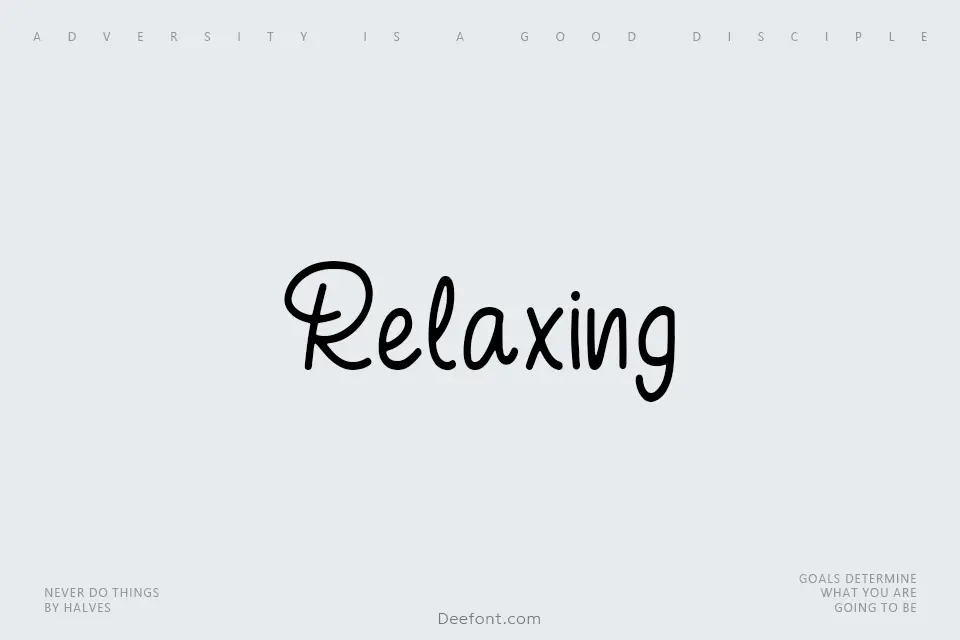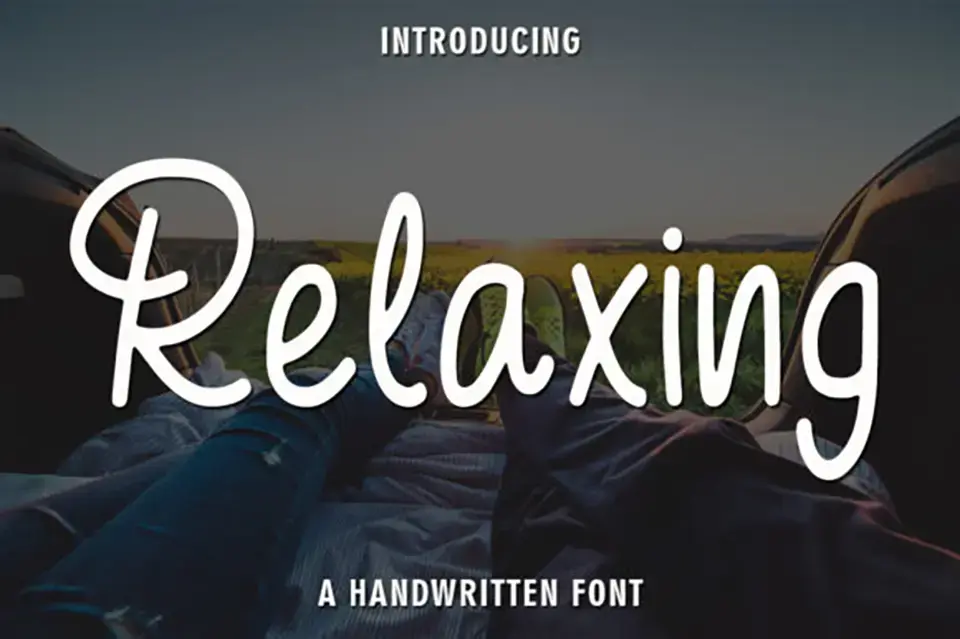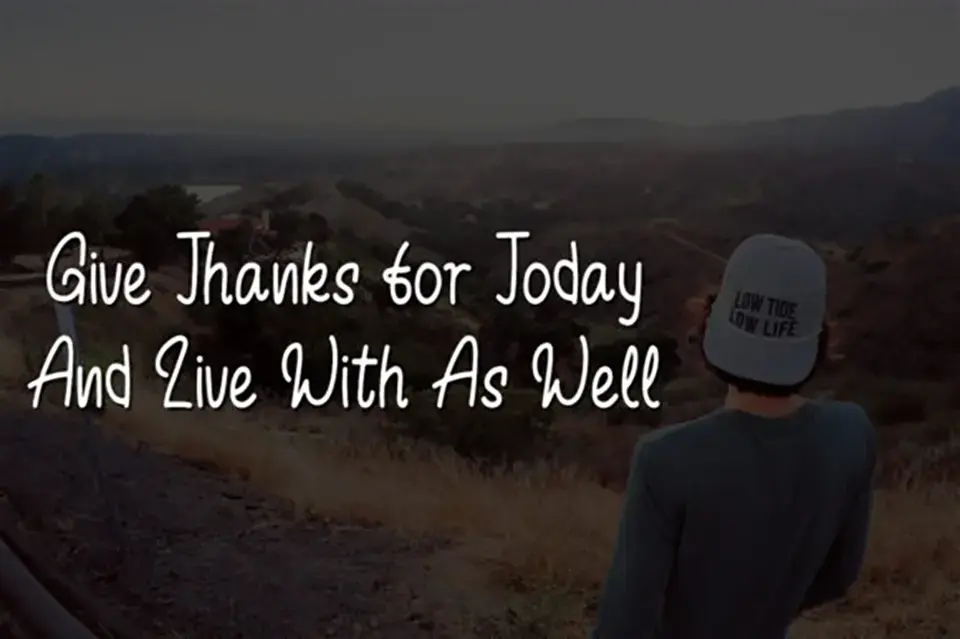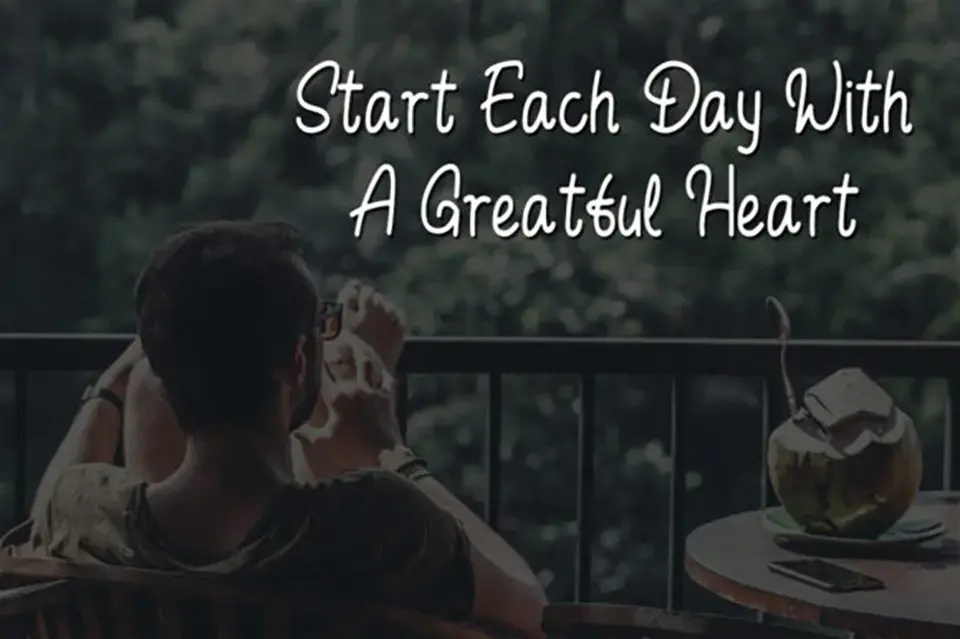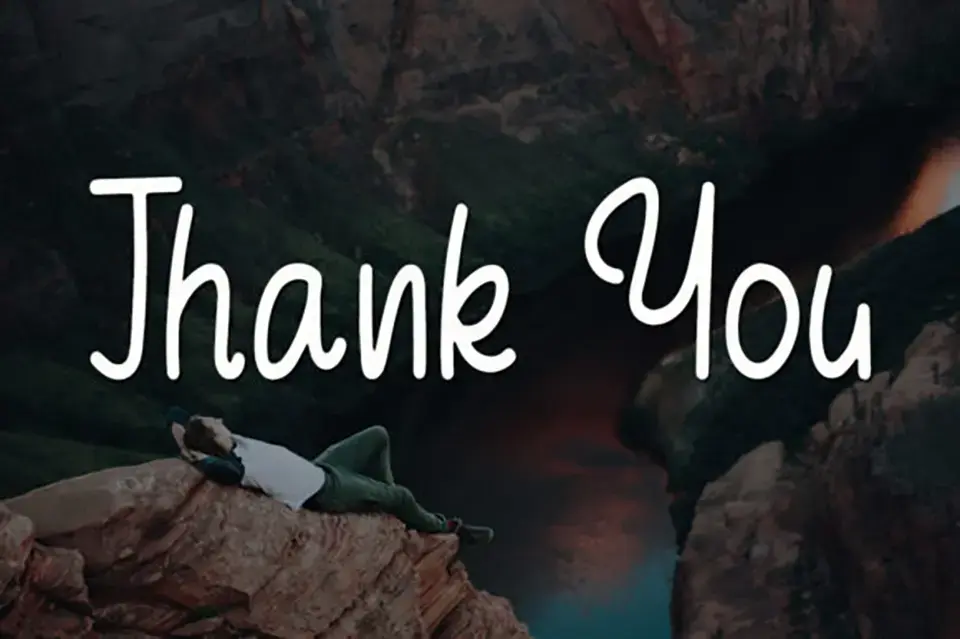
Relaxing Font
Relaxing is an elegant handwritten script typeface designed to bring warmth and natural charm to creative projects. Featuring smooth, flowing cursive letterforms with organic pen-drawn characteristics, this font captures the essence of casual yet refined handwriting. Its relaxed stroke weights and subtle variations create an inviting, personable aesthetic perfect for greeting cards, invitations, decorative signage, poster headlines, and social media graphics, offering designers a versatile handwritten solution for projects demanding an authentic, friendly touch with contemporary appeal.